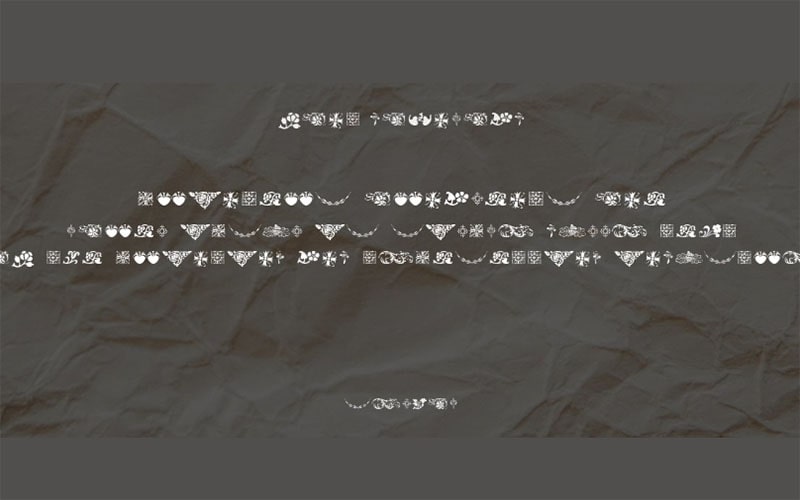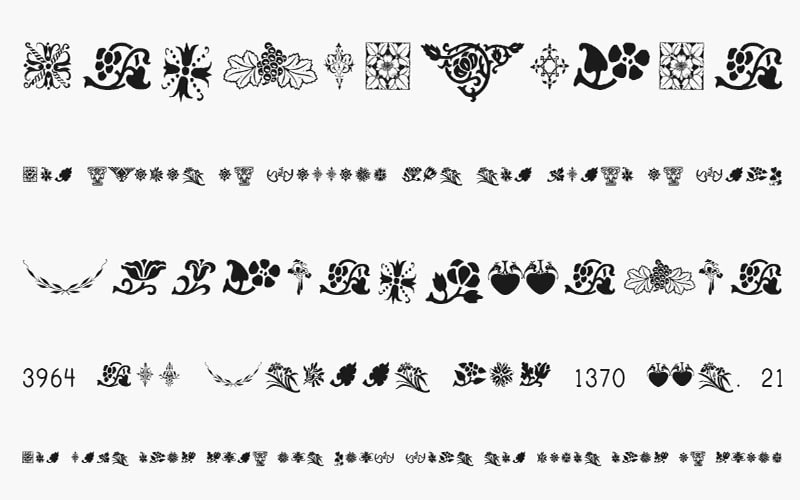
Printers Ornaments One Font is a unique and elegant typeface that adds a touch of classic charm to any design project. It is a creation of Dixie’s Delights.
A renowned type foundry known for its intricate and high-quality font designs. Dixie’s Delights has a rich history of producing typefaces that blend historical aesthetics with modern usability.
Making them a favorite among designers who seek to infuse their projects with a sense of timeless elegance. Designed with meticulous attention to detail, ensuring each ornament is visually appealing and functional.
It is a decorative font that features a collection of ornamental characters and glyphs. These ornaments are perfect for adding decorative flourishes to various design elements, enhancing their visual appeal.
Printers Ornaments One Font
| Font Name: | Printers Ornaments One Font |
| Style: | Dingbats Typeface |
| Font Designer: | Dixie’s Delights |
The primary style features a wide array of decorative ornaments, flourishes, and embellishments that can be used to accentuate text or create standalone decorative elements.
Emulates historical printing ornaments, adding a touch of vintage elegance to modern designs. It features a wide array of decorative glyphs and ornaments.
Optimized for decorative use, ensuring elements can be seamlessly integrated into various designs. It includes characters and glyphs that can be used in various linguistic contexts, enhancing its global usability.
A collection of decorative corner elements that complement ornamental typefaces. This typeface is a must-have for designers and creatives who seek to add a touch of classic elegance to their projects.